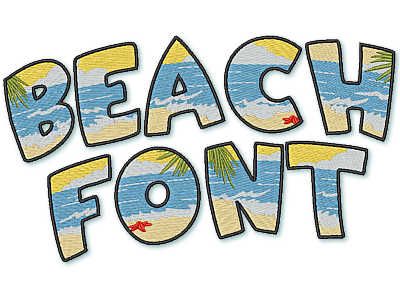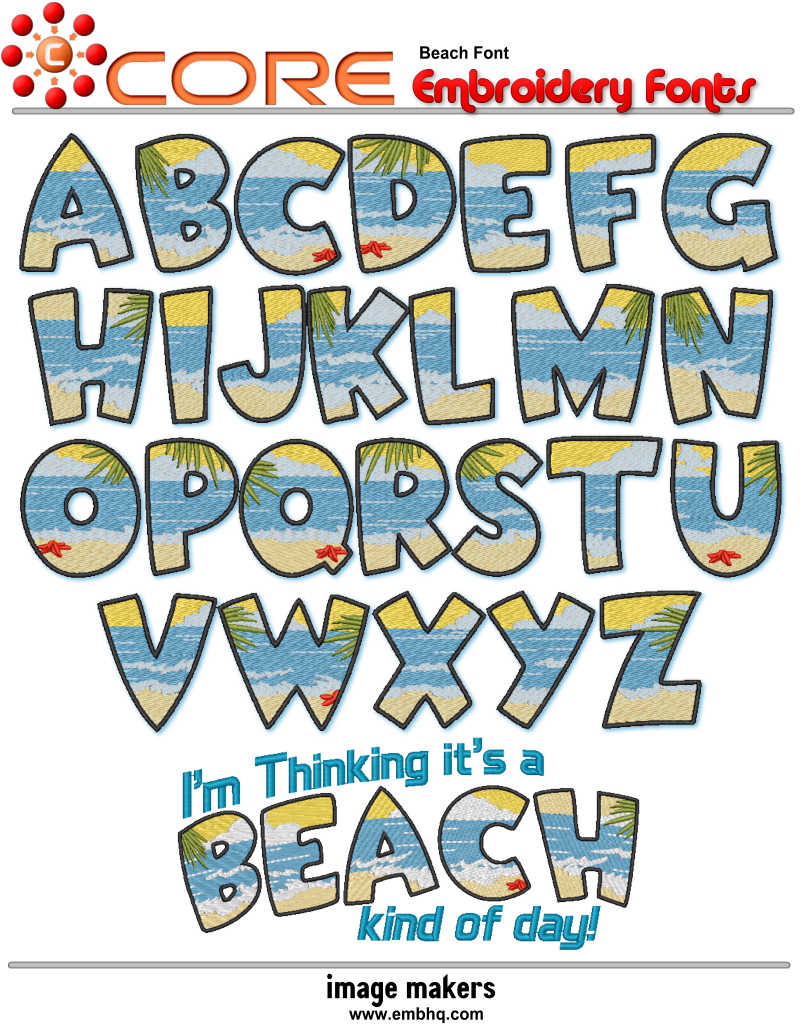
Beach Font
The Beach font is an all-caps font with a fun beach theme. 4 colors, intended for larger sizes. Think how cool it would look on towels, resort wear etc....